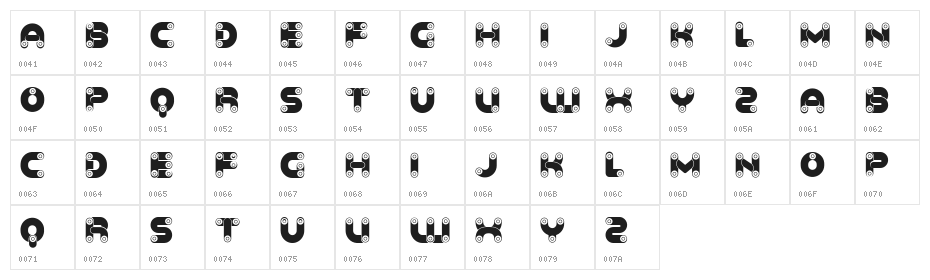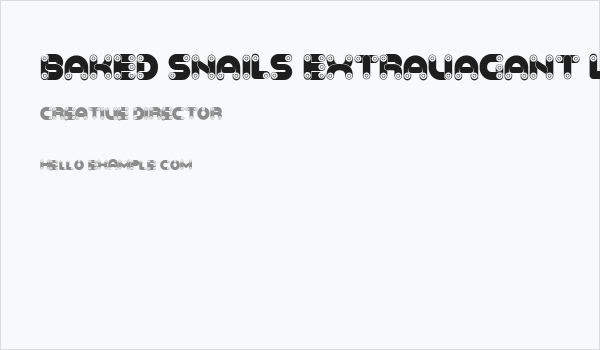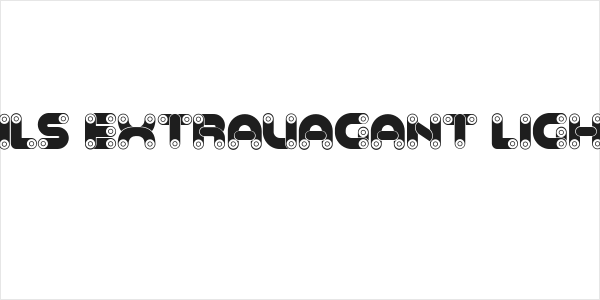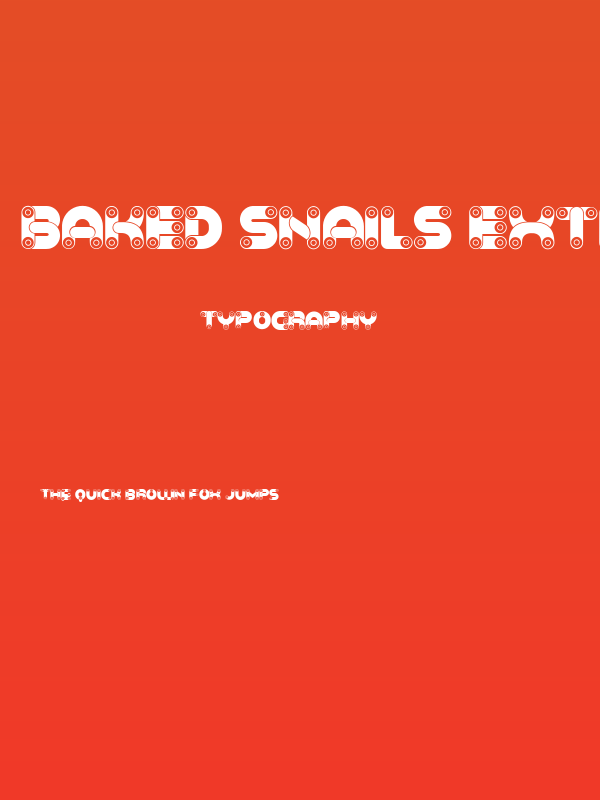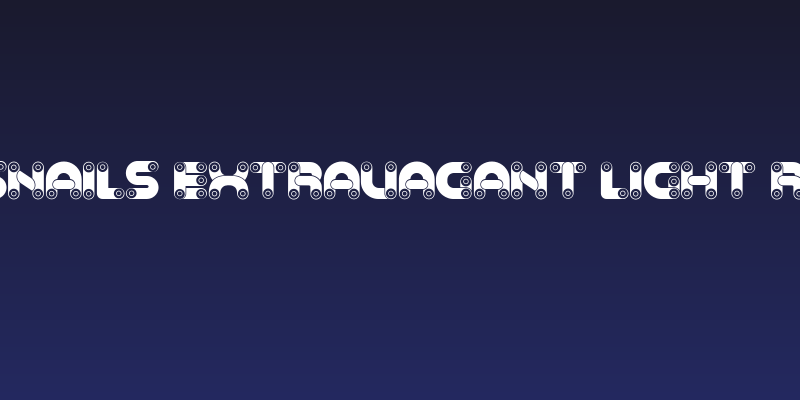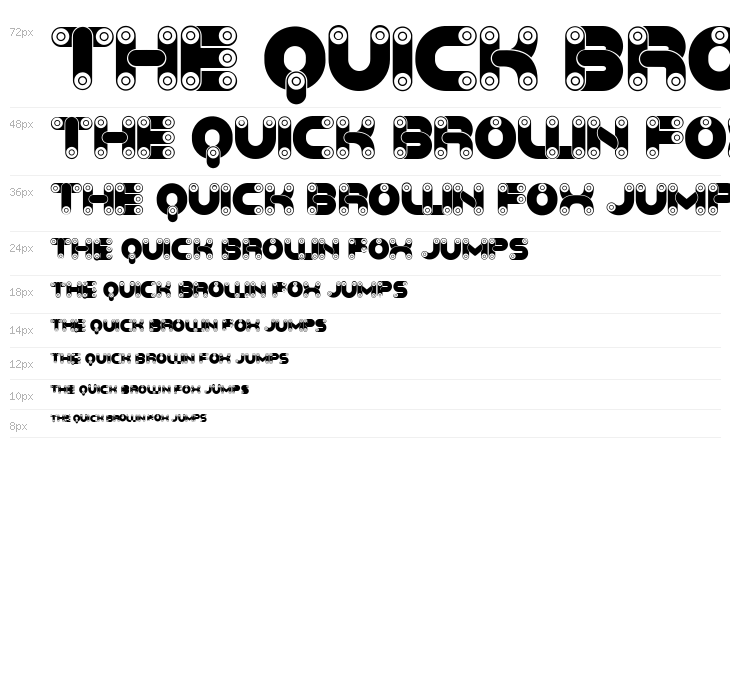
Baked Snails Extravagant Light Regular Font
This font features a unique and playful design, characterized by its bold, rounded shapes and intricate patterns within each letter. The letters are composed of thick, solid strokes with circular cutouts, giving them a mechanical and decorative appearance. The overall look is both modern and whimsical, making it stand out in any design. The font maintains a consistent weight throughout, with a focus on geometric forms and symmetry. Its distinctive style is suitable for creative projects that require a touch of extravagance and flair.
Proposed ProjectsIdeal for branding, posters, album covers, and any project needing a playful, eye-catching typeface.